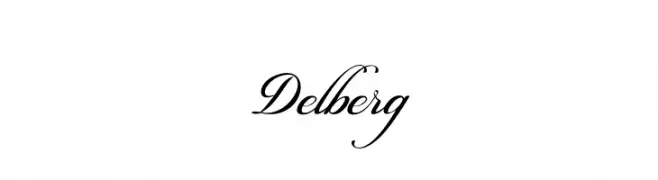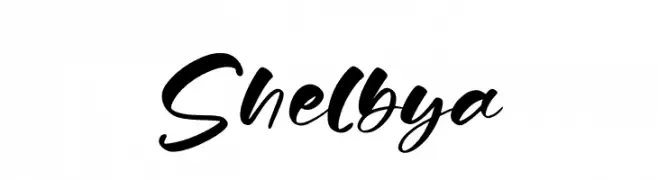
A bold, brush-style font with dynamic, expressive strokes.
A decorative font with elegant curves and playful serifs, blending classic and modern styles.
A futuristic, geometric font with sharp angles and a mechanical feel.
An elegant script font with flowing, cursive letterforms and sophisticated flourishes.
A bold, brush-style font with a dynamic, handwritten appearance.
A bold, playful font with rounded, slightly condensed characters.
A bold, playful font with rounded edges and consistent stroke width.
A dot matrix font with a retro digital display style.
A bold, flowing script font with elegant curves and a dynamic style.